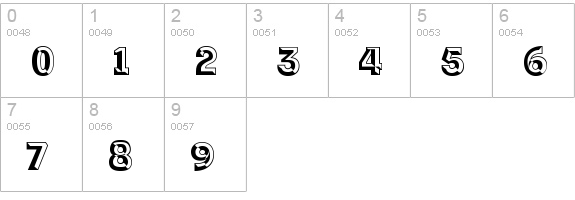
Introducing RACE1 Brannt Plus Chiseled NCV, a bold and dynamic font that exudes strength and power. This font is the perfect choice for projects that require a strong and impactful visual presence. Its chiseled edges and sharp angles add an element of ruggedness and determination to any design. RACE1 Brannt Plus Chiseled NCV is a versatile font that can be used for a wide range of applications, including branding, headlines, posters, and more. Its bold and commanding letterforms demand attention and leave a lasting impression on the viewer. What sets RACE1 Brannt Plus Chiseled NCV apart is not only its striking design, but also its accessibility. This font is freely available to download at FontsMarket.com, making it easily accessible to designers and creatives looking to add a touch of boldness to their projects without breaking the bank. Whether you're looking to create a powerful logo, a captivating poster, or a statement-making headline, RACE1 Brannt Plus Chiseled NCV is the font that will make your design stand out from the crowd. Its unique chiseled style and strong presence will leave a lasting impact on your audience, making it the perfect choice for those who want to make a bold statement. Download this font for free at FontsMarket.com and unleash the power of RACE1 Brannt Plus Chiseled NCV in your designs today.